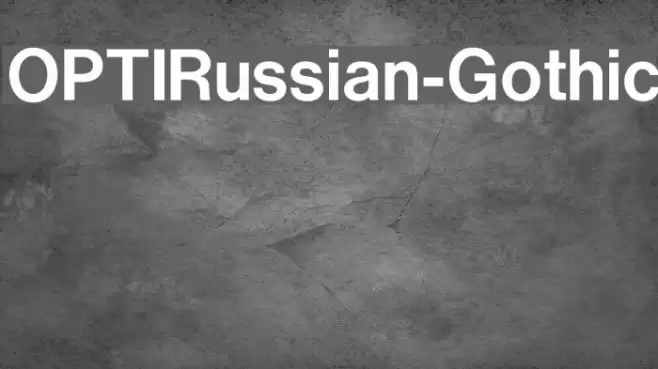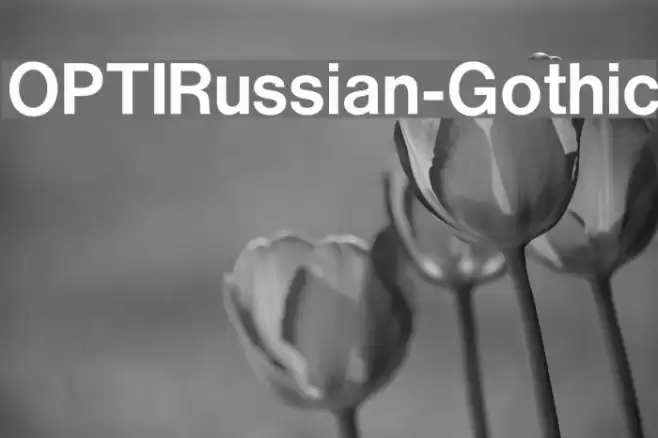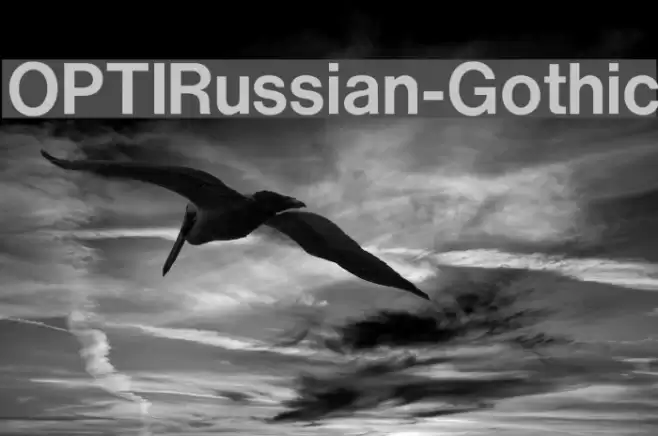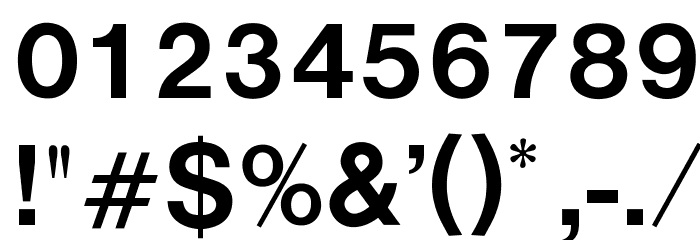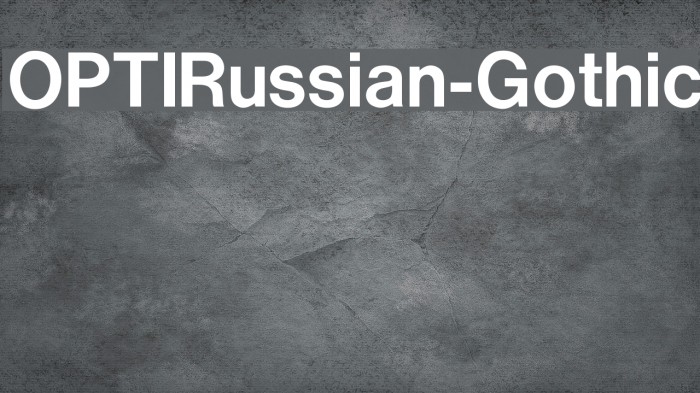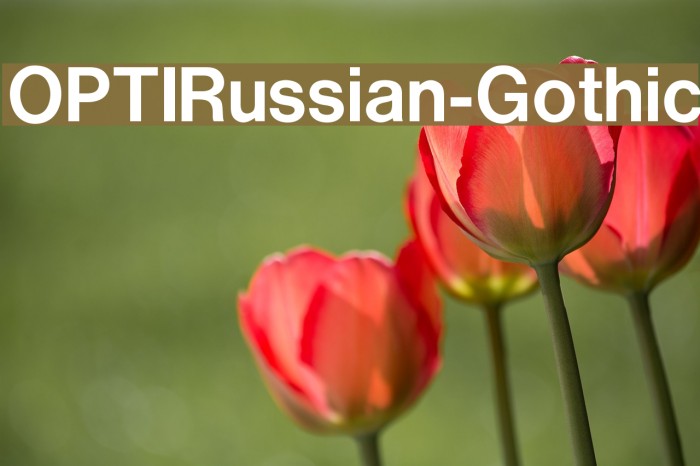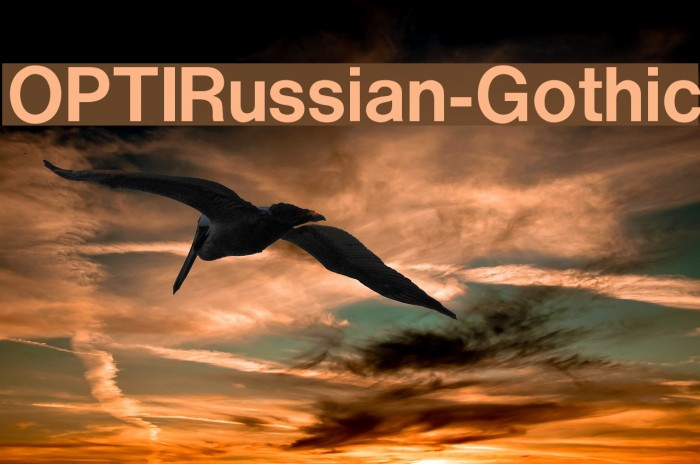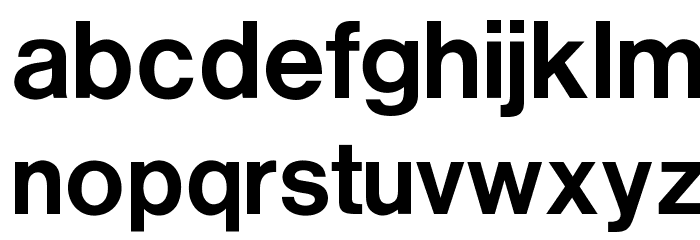
OPTIRussian-Gothic Font
OPTIRussian-Gothic Description
This font features a bold and modern sans-serif design, characterized by clean lines and a geometric structure. The uppercase and lowercase letters are well-proportioned, with a consistent stroke width that conveys a sense of stability and strength. The numerals and special characters maintain the same boldness, ensuring uniformity across all text elements. Its simplicity and clarity make it highly legible, suitable for a variety of applications where readability is paramount.
A bold, modern sans-serif font with clean lines and geometric structure from Uncategorized fonts.
- Proposed Projects: Ideal for branding, advertising, headlines, and digital interfaces where clarity and impact are essential.
- Use Case: Headlines, Logos, Digital interfaces